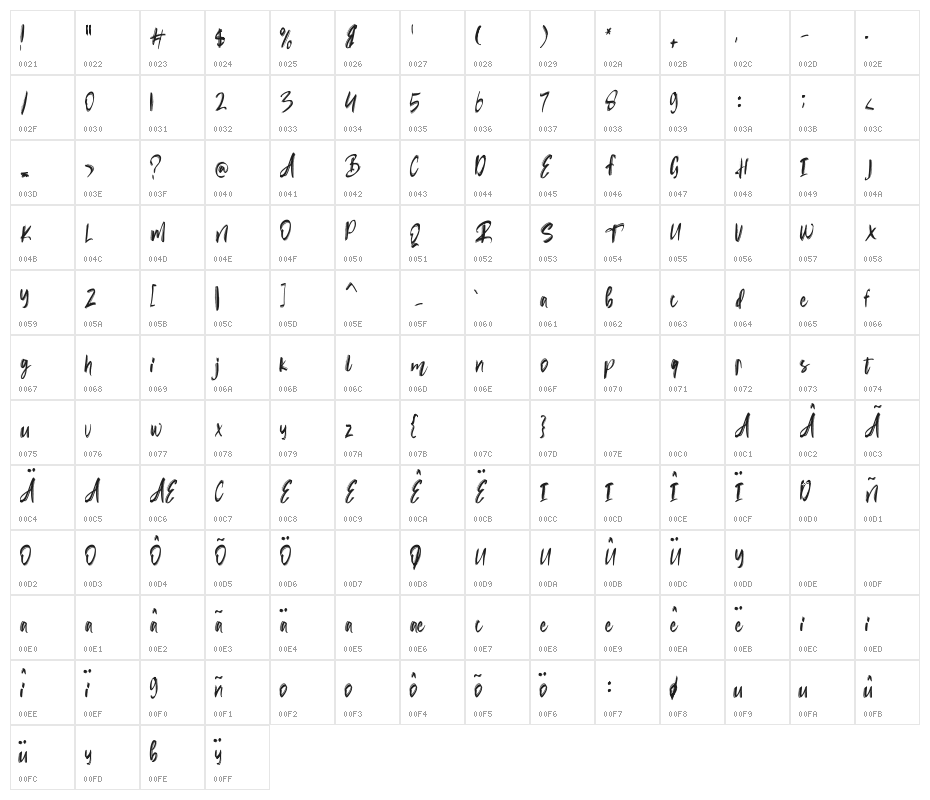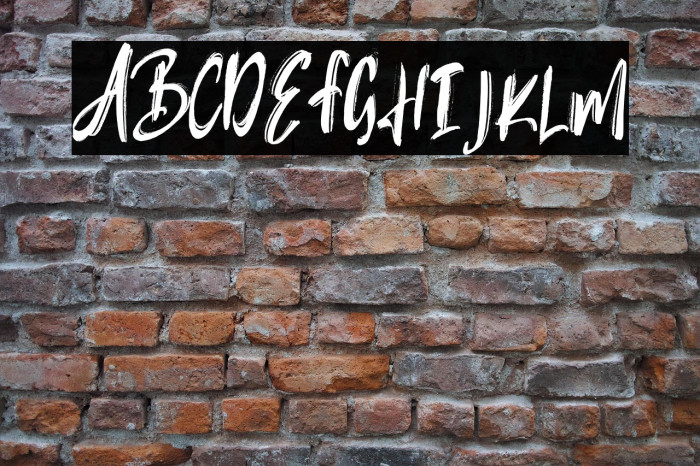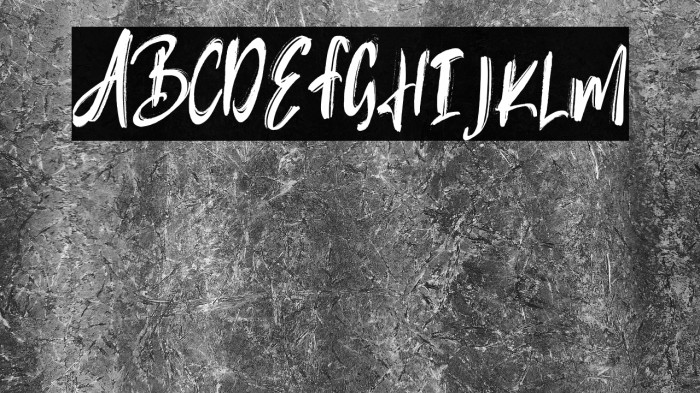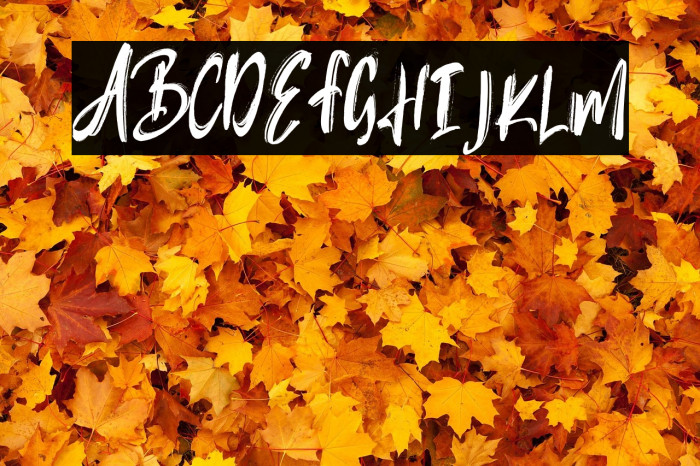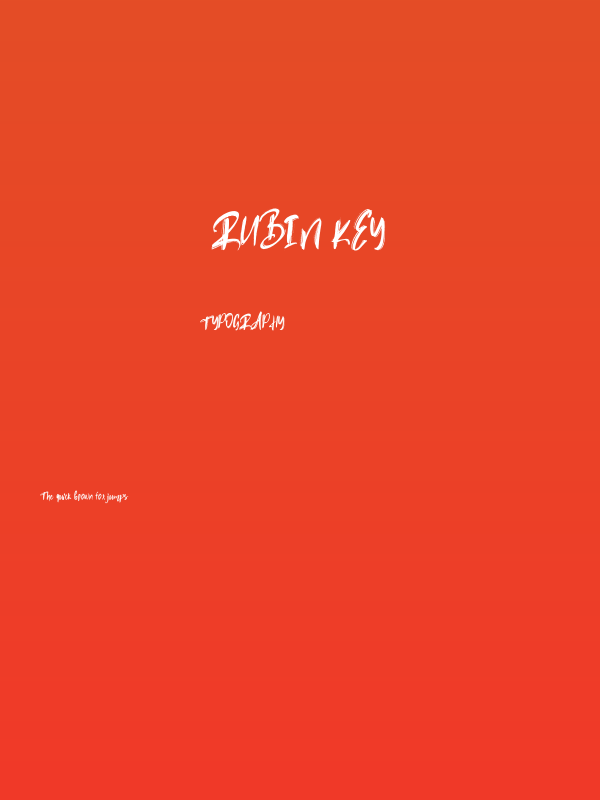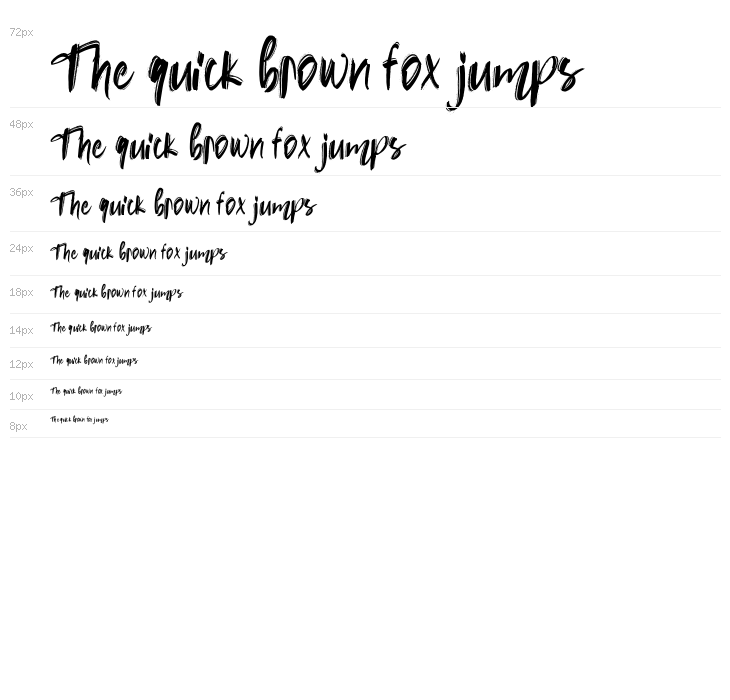
Rubin Key Font
Rubin Key Description
This font exhibits a dynamic and energetic brush script style, characterized by its bold, sweeping strokes and a hand-painted appearance. The letters have a fluid motion, with varying thickness that adds a sense of movement and spontaneity. The uppercase characters are particularly striking, with exaggerated curves and a slightly slanted orientation, while the lowercase letters maintain a cohesive flow. The numerals and special characters follow the same expressive style, ensuring consistency across all glyphs. This font's artistic flair makes it ideal for projects that require a personal touch or a creative, informal vibe.
| Use Case | Logos, Headlines, Posters |
| Proposed Projects | Ideal for branding, packaging, invitations, posters, and any design needing a creative, personal touch. |